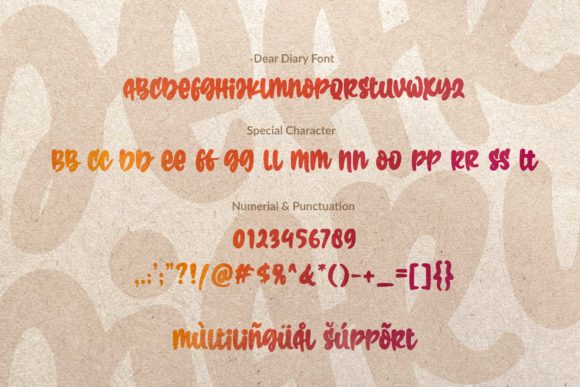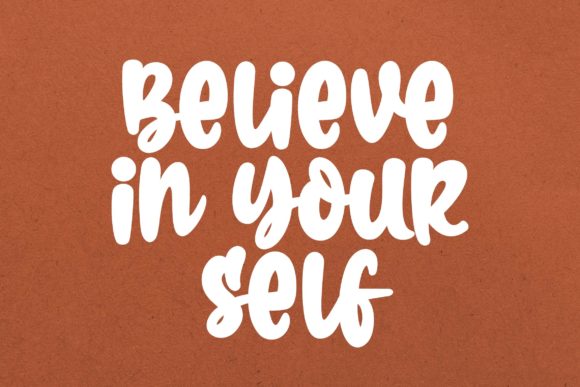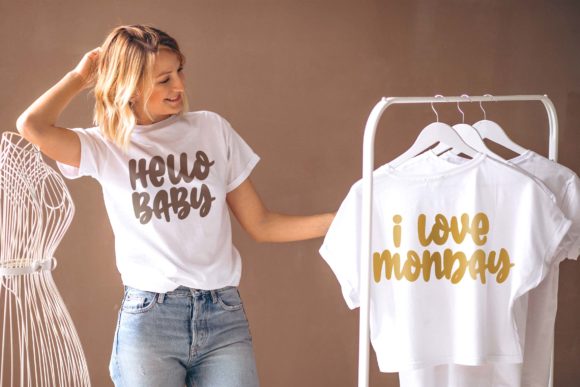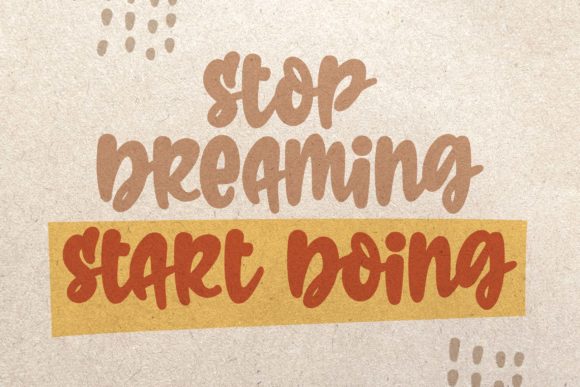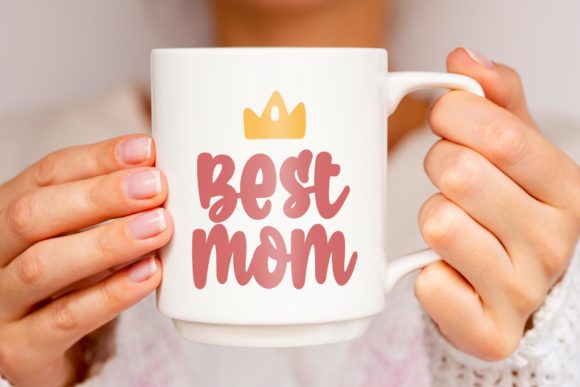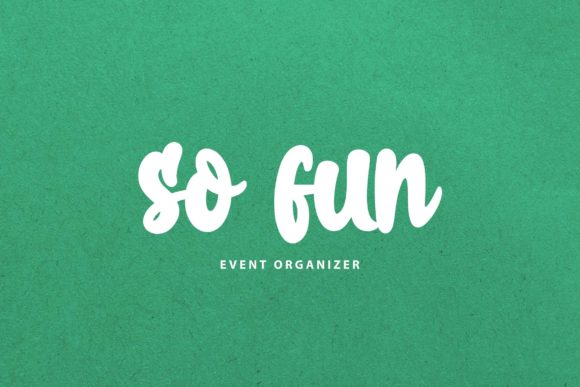
Discover the Charm of Dear Diary Font: A Cute and Bold Handwritten Style
Are you a designer, crafter, or DIY enthusiast looking for a unique and eye-catching font to elevate your projects? Look no further than the Dear Diary font, a delightful and bold handwritten style that’s sure to capture attention. In this article, we’ll dive into the world of Dear Diary font, exploring its features, uses, and benefits, as well as provide tips and inspiration for incorporating it into your creative endeavors.
What is Dear Diary Font?
Dear Diary font is a beautiful, all-caps handwritten font that’s perfect for adding a personal touch to your designs. Its bold and playful style makes it an excellent choice for headlines, titles, and other prominent text elements. The font’s charming and whimsical feel is reminiscent of a child’s diary entry, evoking a sense of nostalgia and warmth.
Key Features of Dear Diary Font
- All-caps font: Dear Diary font is an all-caps font, making it perfect for headlines, titles, and other text elements that require a strong visual impact.
- Bold and playful style: The font’s bold and playful style ensures it stands out in any context, whether it’s used on busy backgrounds or as a standalone headline.
- Cute and charming feel: Dear Diary font has a delightful, whimsical feel that’s sure to capture attention and evoke emotions.
- Handwritten style: The font’s handwritten style adds a personal touch to your designs, making them more relatable and engaging.
Uses of Dear Diary Font
Dear Diary font is an incredibly versatile font that can be used in a wide range of design projects, including:
- Graphic design: Use Dear Diary font to create eye-catching posters, flyers, brochures, and other graphic design materials.
- Crafting and DIY projects: Add a personal touch to your crafting and DIY projects, such as journals, scrapbooking, and card making.
- Digital design: Use Dear Diary font in digital designs, such as social media graphics, blog headers, and website titles.
- Branding and packaging: Incorporate Dear Diary font into your brand’s visual identity, such as on product labels, packaging, and marketing materials.
Benefits of Using Dear Diary Font
So, why choose Dear Diary font for your design projects? Here are just a few benefits:
- Unique and attention-grabbing: Dear Diary font is a one-of-a-kind font that’s sure to capture attention and set your designs apart.
- Easy to read: Despite its bold and playful style, Dear Diary font is easy to read, making it perfect for use in a variety of contexts.
- Versatile: Dear Diary font can be used in a wide range of design projects, from graphic design to digital design and crafting.
- Emotional connection: The font’s charming and whimsical feel can help create an emotional connection with your audience, making your designs more relatable and engaging.
Tips for Using Dear Diary Font
To get the most out of Dear Diary font, here are a few tips to keep in mind:
- Use it boldly: Dear Diary font is a bold font, so don’t be afraid to use it in large sizes and prominent text elements.
- Pair it with contrasting fonts: Pair Dear Diary font with contrasting fonts to create visual interest and add depth to your designs.
- Experiment with colors: Try out different colors and textures to add an extra layer of visual interest to your designs.
- Keep it simple: Don’t over-accessorize your designs – sometimes, simplicity is the best way to let Dear Diary font shine.
Still looking for inspiration on how to use Dear Diary font? Here are a few ideas to get you started:
- Create a handmade journal: Use Dear Diary font to create a one-of-a-kind handmade journal that’s perfect for writing, sketching, or jotting down ideas.
- Design a custom party invitation: Use Dear Diary font to create a custom party invitation that’s sure to delight your guests.
- Make a set of DIY greeting cards: Add a personal touch to your greeting cards with Dear Diary font and a dash of creativity.
- Develop a brand identity: Use Dear Diary font to develop a unique brand identity that’s playful, charming, and memorable.
In conclusion, Dear Diary font is a delightful and bold handwritten font that’s perfect for designers, crafters, and DIY enthusiasts looking to add a personal touch to their projects. With its all-caps style, bold and playful feel, and charming and whimsical character, Dear Diary font is sure to capture attention and evoke emotions. So why not give it a try and see how it can elevate your designs?